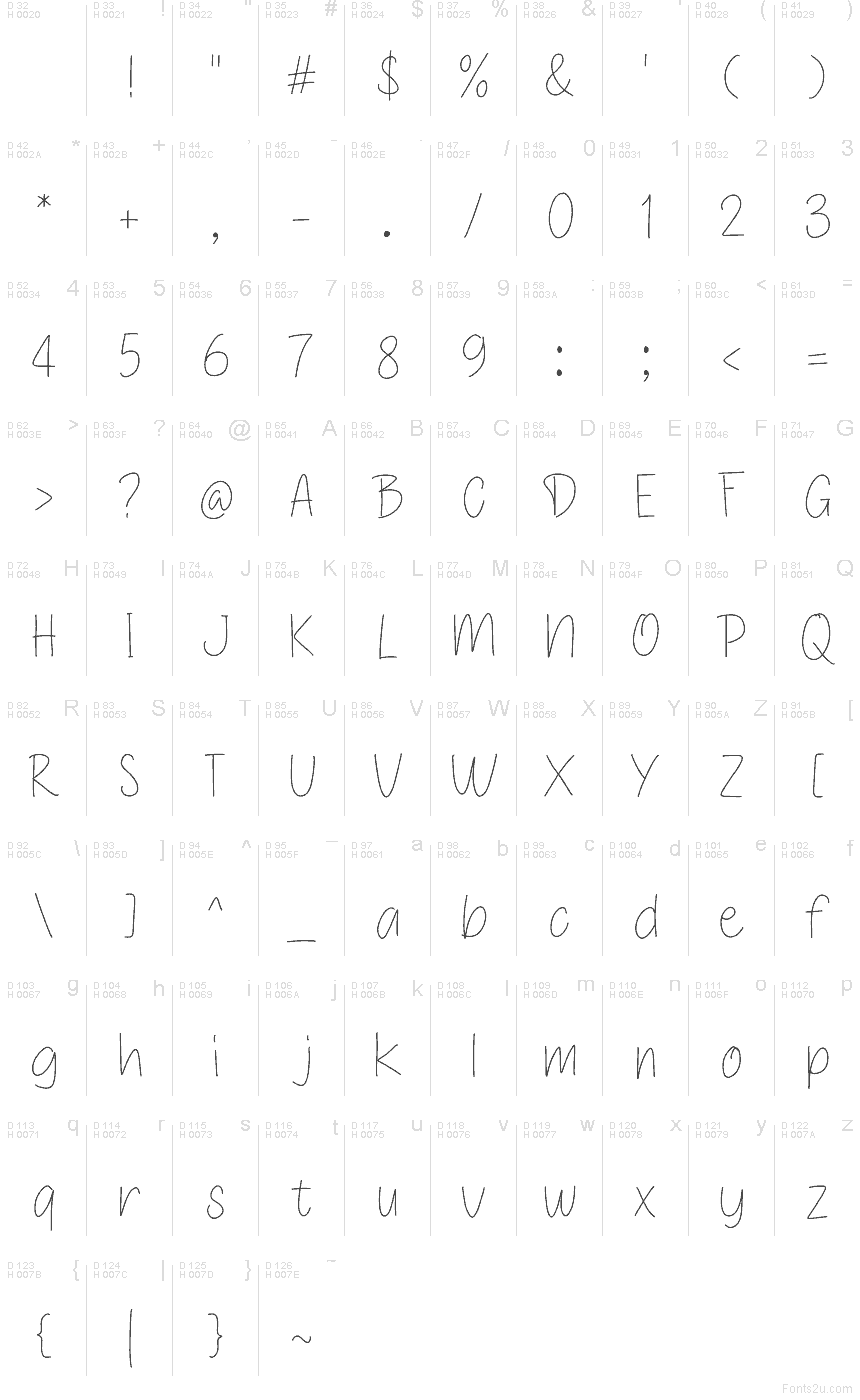
Little Small
Little Small font by Hello Good Studio is a free handwritten font with tall, narrow letters and slightly uneven strokes. The shapes feel loosely drawn, with simple curves, long crossbars, and a casual rhythm that keeps it personal without looking messy.
Little Small works well for greeting cards, quote graphics, poster accents, logo drafts, packaging labels, and handmade craft branding because it brings a direct, sketched tone to short text. This free font also fits notebook-style layouts and social media posts when you want writing that feels quick, human, and lightly informal.